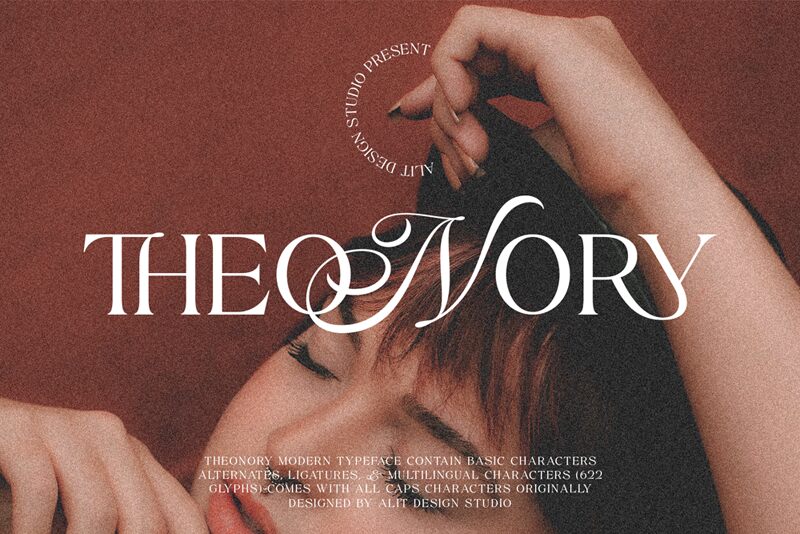
Theonory, a captivating display font by Alit Design, combines the grace of calligraphy with refined serifs.
Its semi-light weight adds an elegant touch to any design project, making it perfect for wedding invitations and high-end branding. This versatile typeface is also suitable for book covers that seek to evoke a sense of sophistication and timelessness.
With Theonory, your designs will effortlessly exude class and beauty, leaving a lasting impression on your audience.